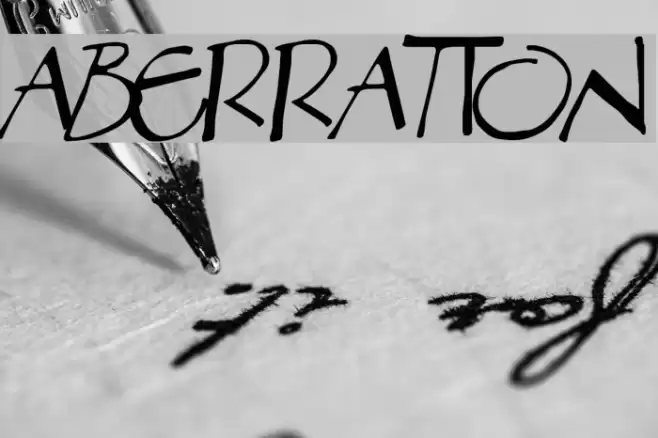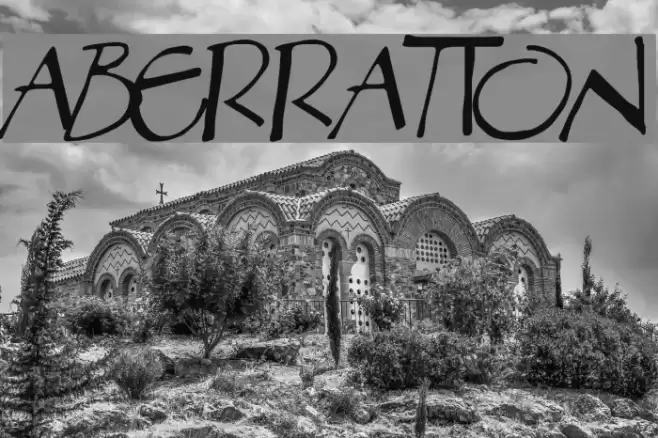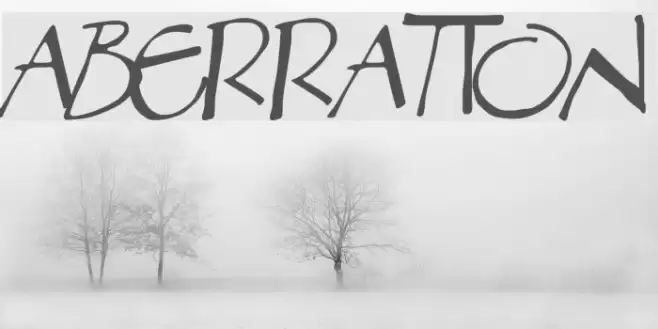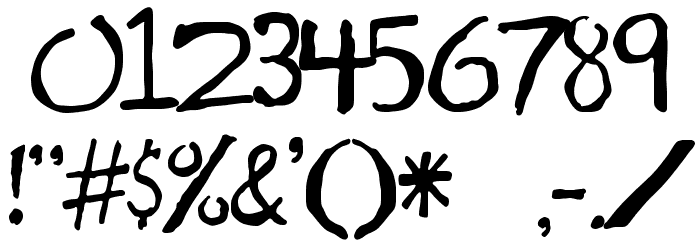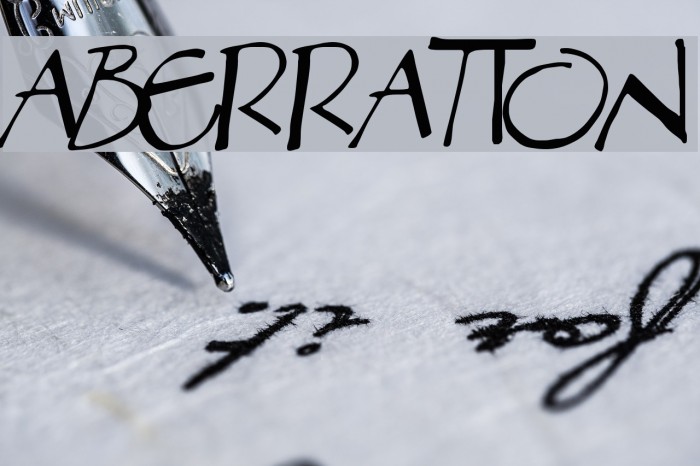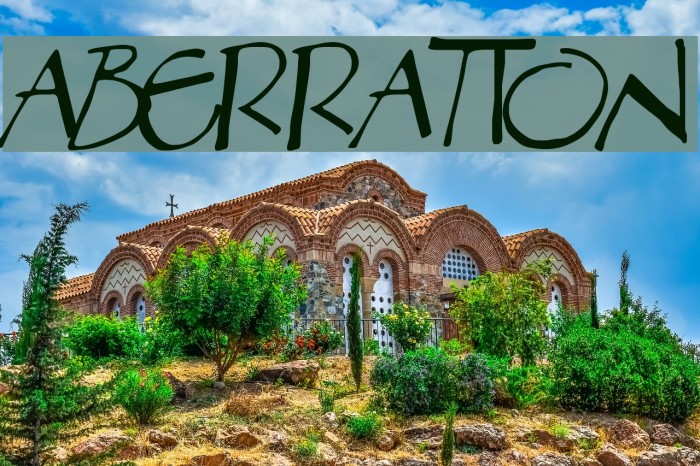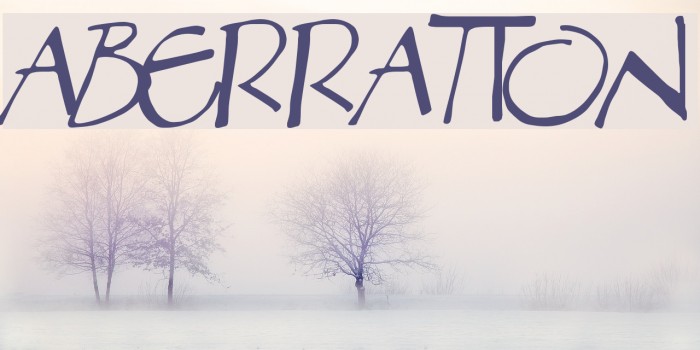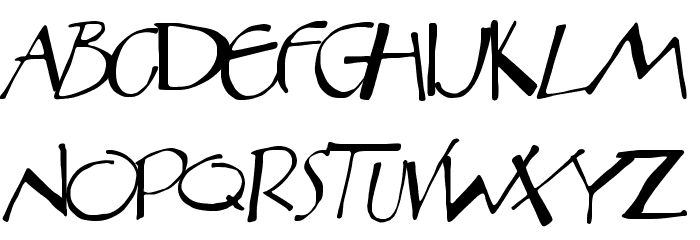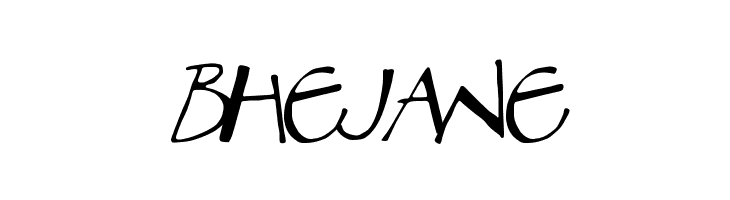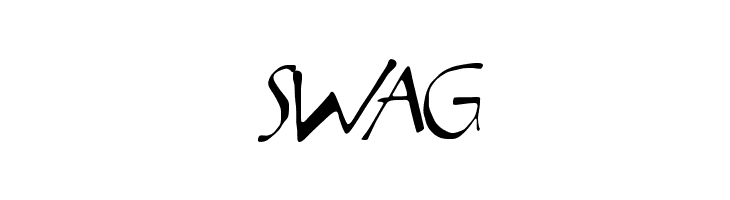
Aberration Font
Aberration Description
This font exhibits a unique, artistic flair with its irregular, hand-drawn appearance. The characters are bold and expressive, featuring sharp angles and varying stroke widths that create a dynamic and energetic feel. The uppercase letters are particularly striking, with exaggerated curves and lines that give each character a distinct personality. The lowercase letters maintain this style, offering a cohesive look across the alphabet. Numbers and special characters are equally stylized, ensuring consistency throughout. This font's unconventional design makes it stand out, perfect for creative projects that require a touch of individuality.
A bold, hand-drawn font with irregular strokes and dynamic, artistic flair from Script fonts.
- Proposed Projects: Ideal for artistic projects, posters, album covers, and any design needing a bold, creative touch.
- Overall Style: Artistic, Creative
- Use Case: Headlines, Posters, Creative Designs